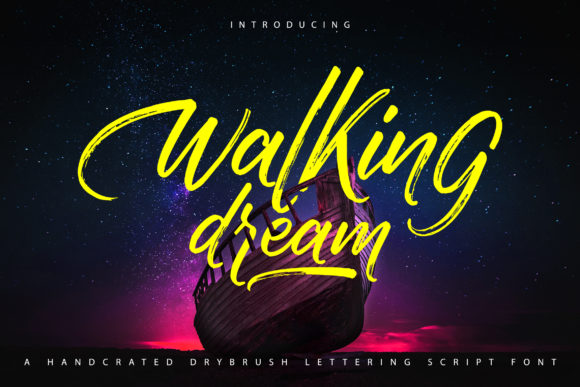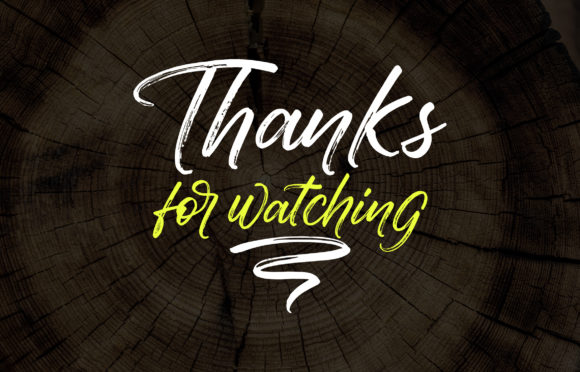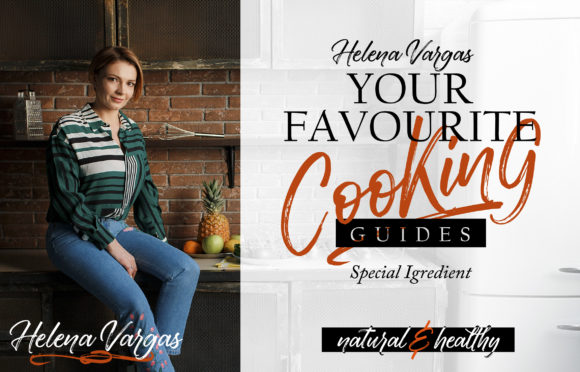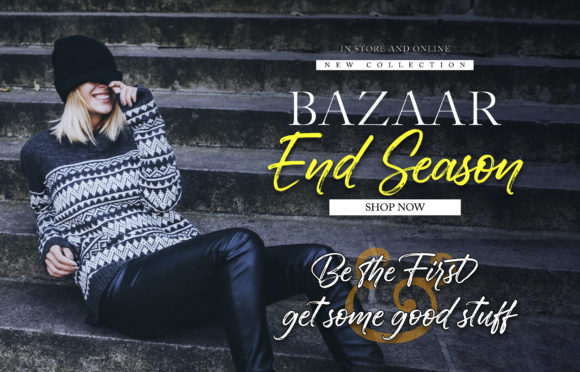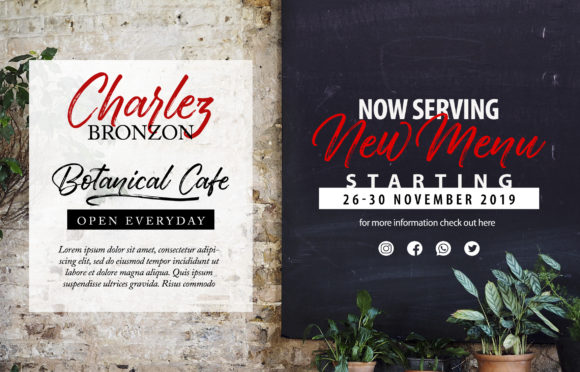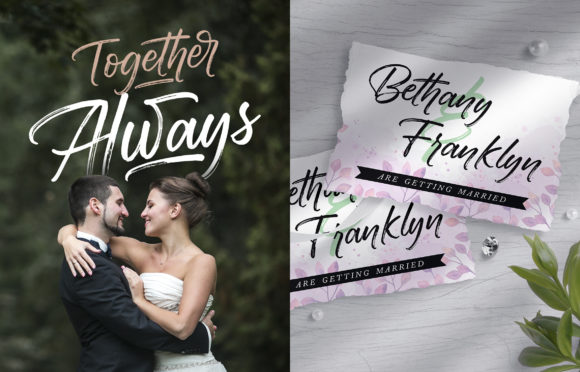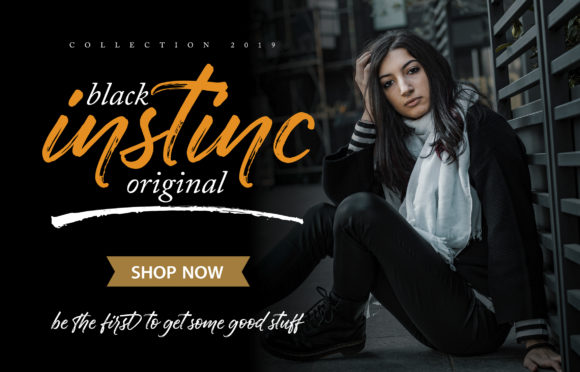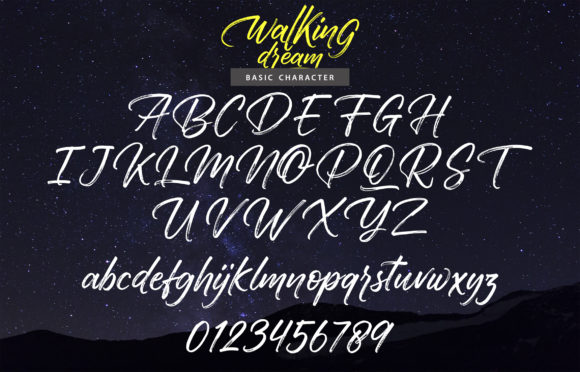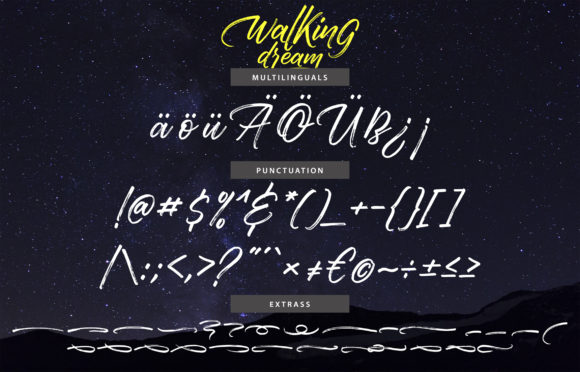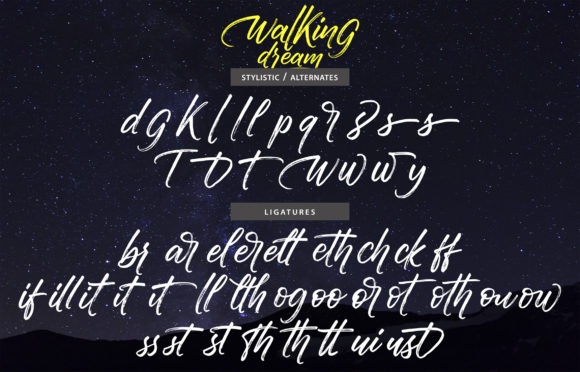
Walking Dream Font
About Walking Dream Font
Walking Dream is a bold and playful dry brush font with a dynamic vibe. It will turn any design idea into a true standout.